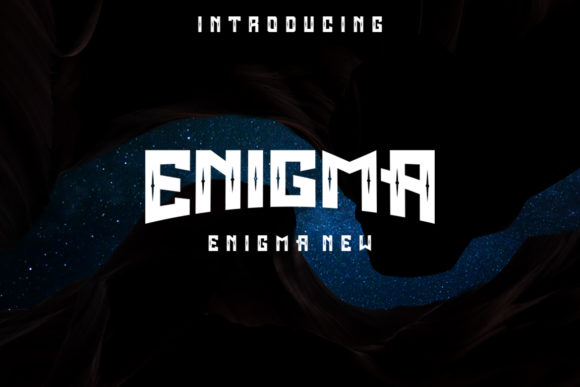
Introducing Enigma Font, the ultimate display font designed to captivate your audience and elevate your creative projects. Experience the power of bold and thick lettering, crafted to leave a lasting impression. Whether you're a seasoned graphic designer or a creative entrepreneur, Enigma Font is your key to unlocking a world of endless possibilities.
Dive into the beauty of Enigma Font, a display font that exudes confidence and sophistication. Its bold strokes and thick lines create a striking visual presence, perfect for grabbing attention and making a statement. Each character is meticulously crafted to deliver a unique and eye-catching aesthetic, ensuring your designs stand out from the crowd.
With Enigma Font, you'll unlock a universe of creative opportunities. Its versatility knows no bounds, making it the perfect choice for designing web layouts, business cards, posters, flyers, social media graphics, and more. Let your imagination soar as you explore the endless possibilities that await with Enigma Font.
Step into the spotlight and embrace the allure of Enigma Font. This remarkable font is your passport to designing projects that radiate excellence and professionalism. Make a lasting impression on your clients and customers with typography that commands attention and ignites conversations. Discover the transformative power of Enigma Font today and elevate your creative endeavors to new heights.